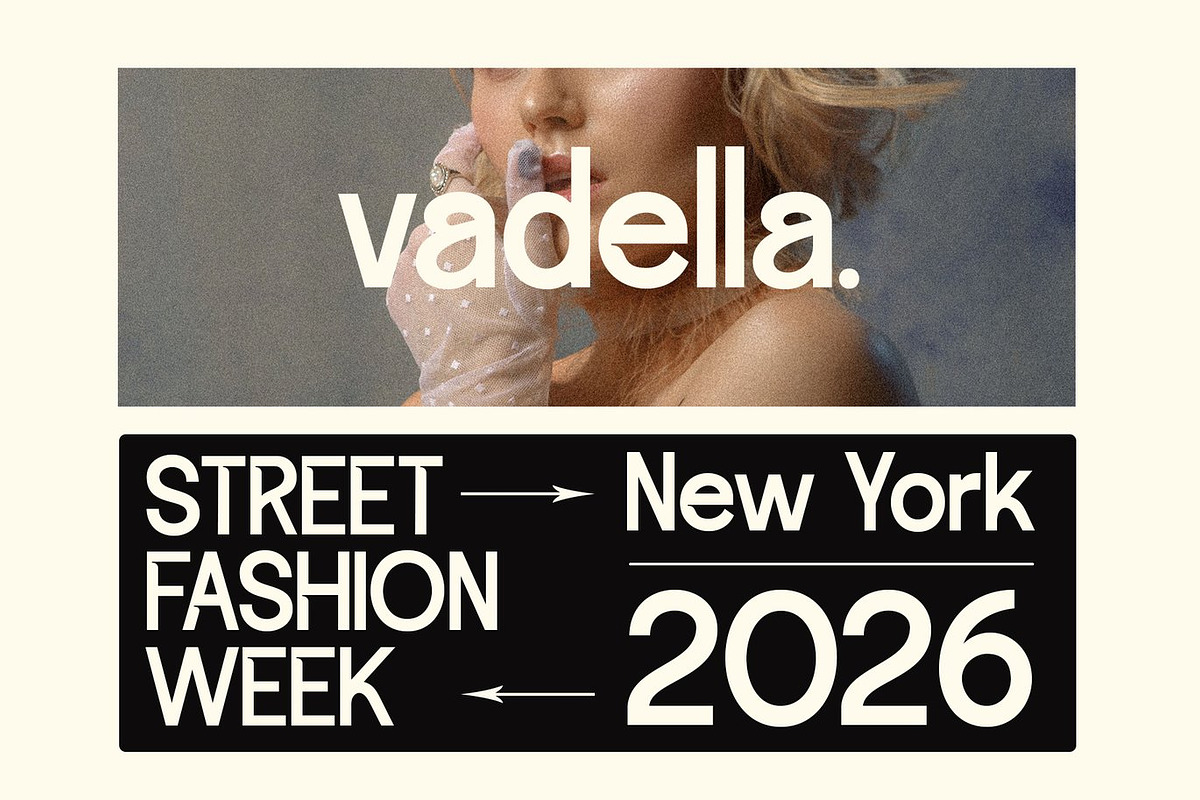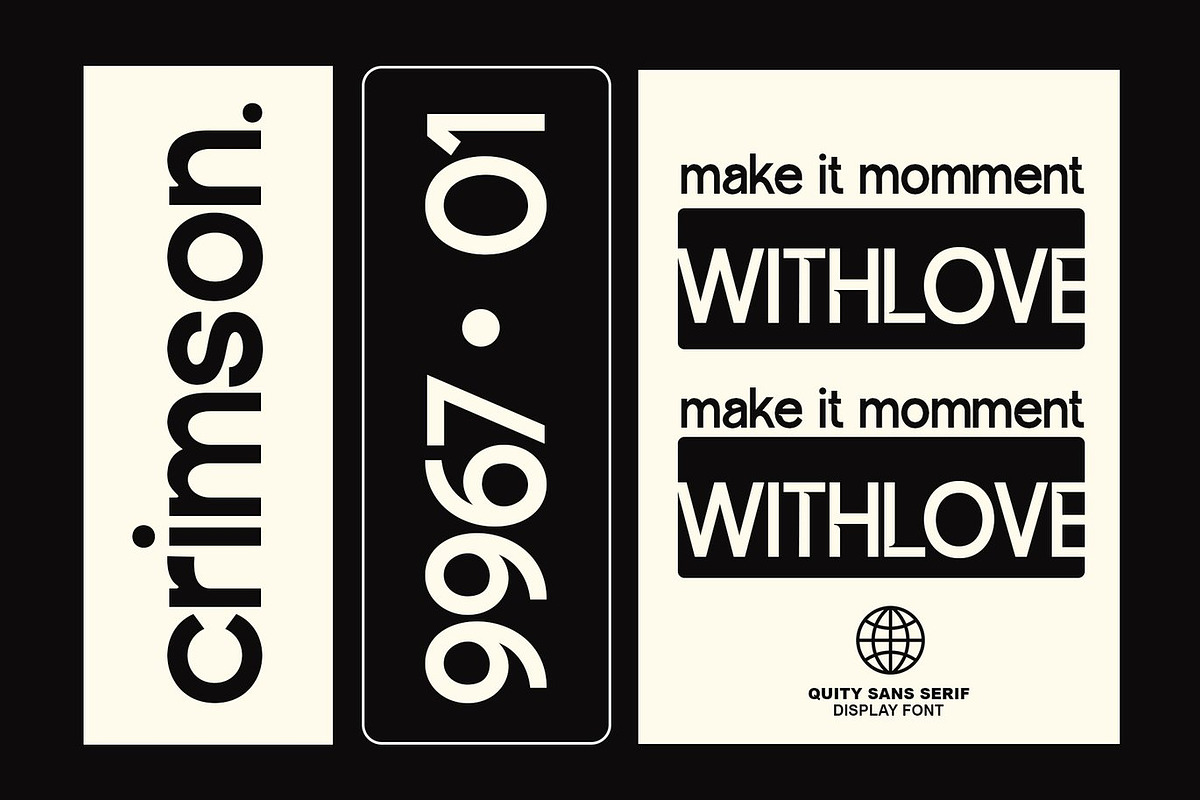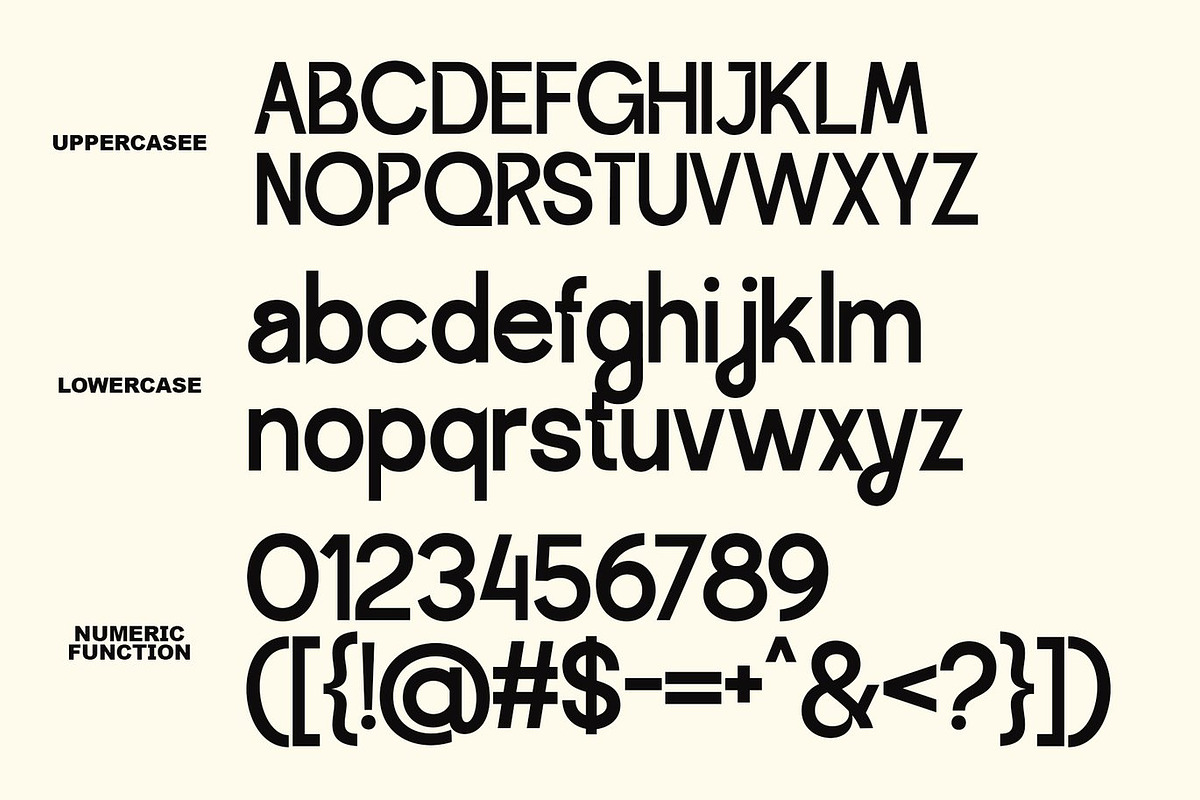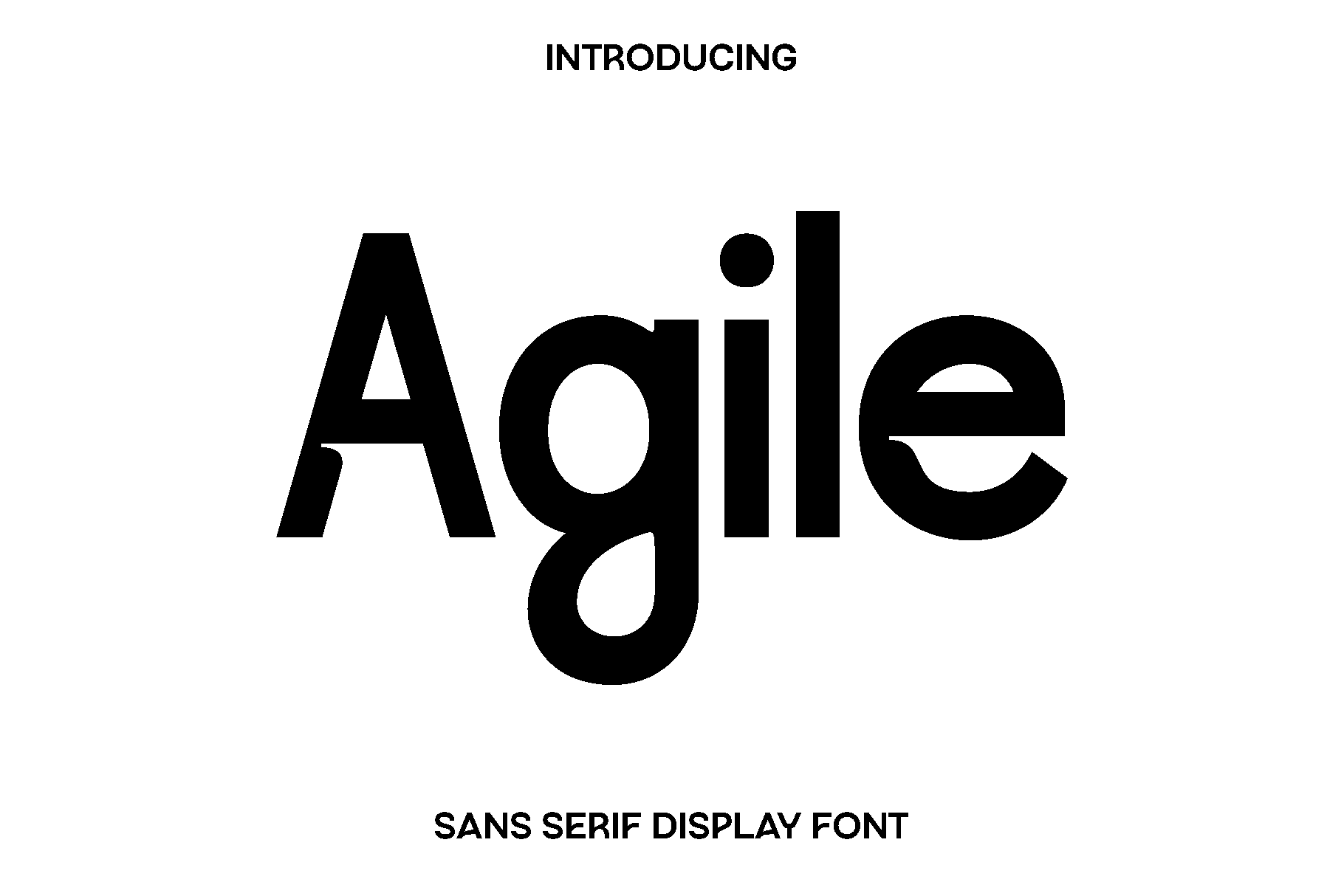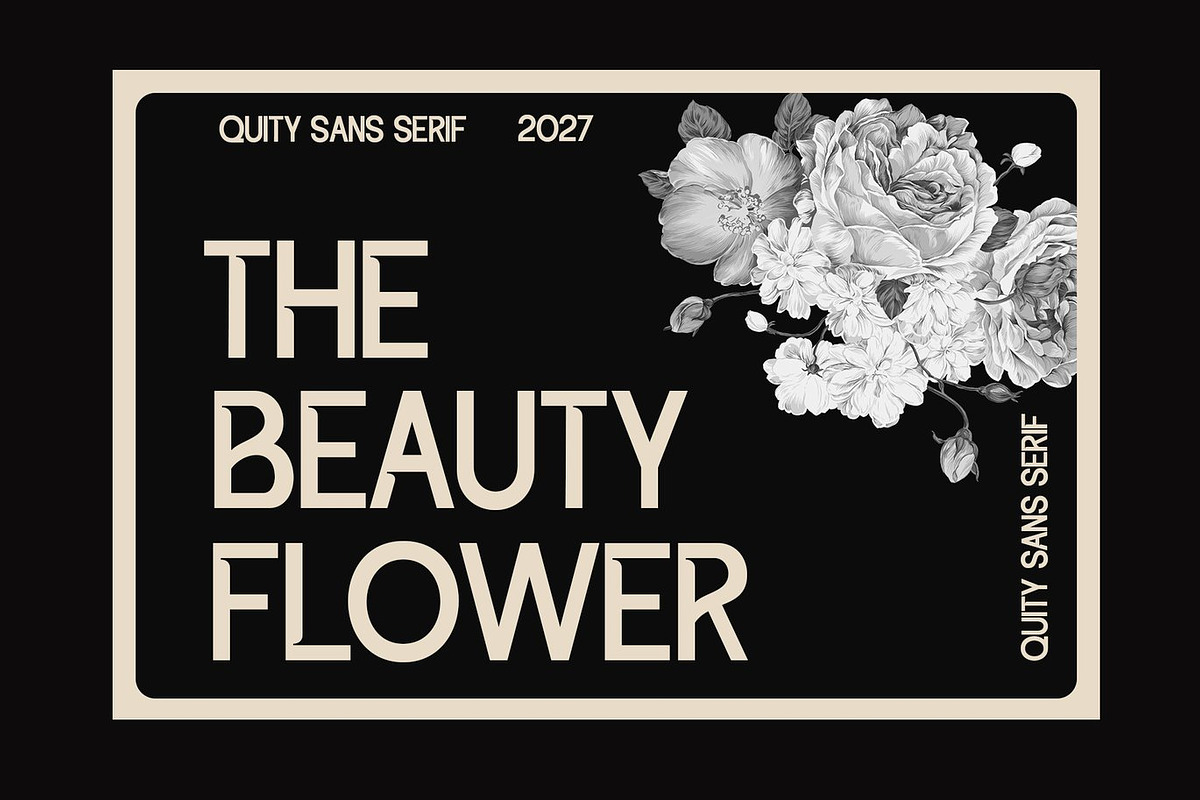
Agile - Sans Serif Display Font
Agile is a modern and versatile typeface created for designers who value clarity, flexibility, and contemporary style. Inspired by clean typography and balanced letterforms, Agile delivers a refined appearance that works beautifully across a wide range of creative projects. Its simple yet confident design gives your text a polished look while maintaining excellent readability in both large and small sizes.
Agile feels modern, professional, and adaptable. The smooth structure of each character allows it to shine in many design environments, from editorial layouts to digital media. Whether you are creating book covers, magazines, blog headers, or promotional posters, Agile provides a strong typographic foundation that enhances the overall composition.
This typeface is also an excellent choice for branding and logo design. Its balanced shapes help communicate clarity and professionalism, making it suitable for corporate identities, photography branding, inspirational quotes, advertisements, and modern visual campaigns. Agile works effortlessly in both print and digital formats, giving designers a reliable font that adapts to different creative needs.
With its clean style and practical functionality, Agile becomes an essential addition to any designer’s toolkit. It brings a sense of modern simplicity and versatility that allows your ideas to stand out while keeping the focus on strong, effective communication.
Agile Font Features:
• Uppercase and lowercase characters
• Numerals and functional symbols
• Clean and versatile letterforms